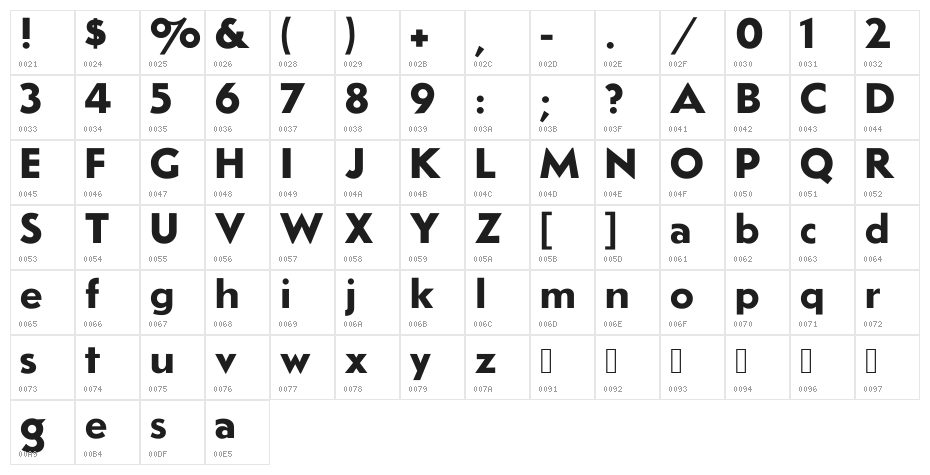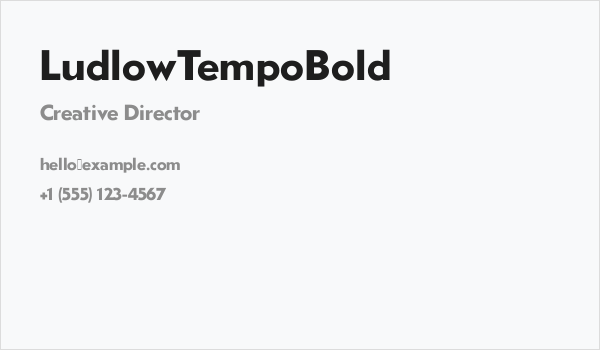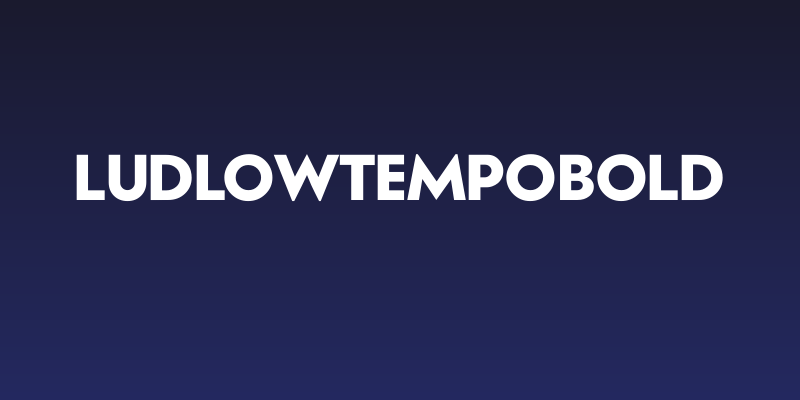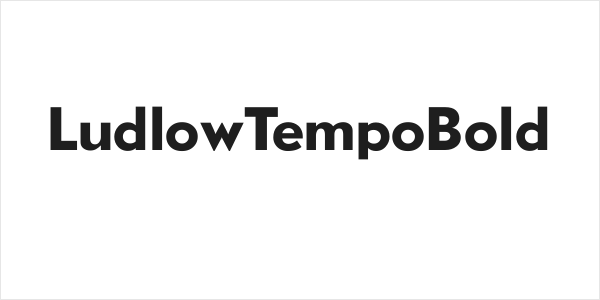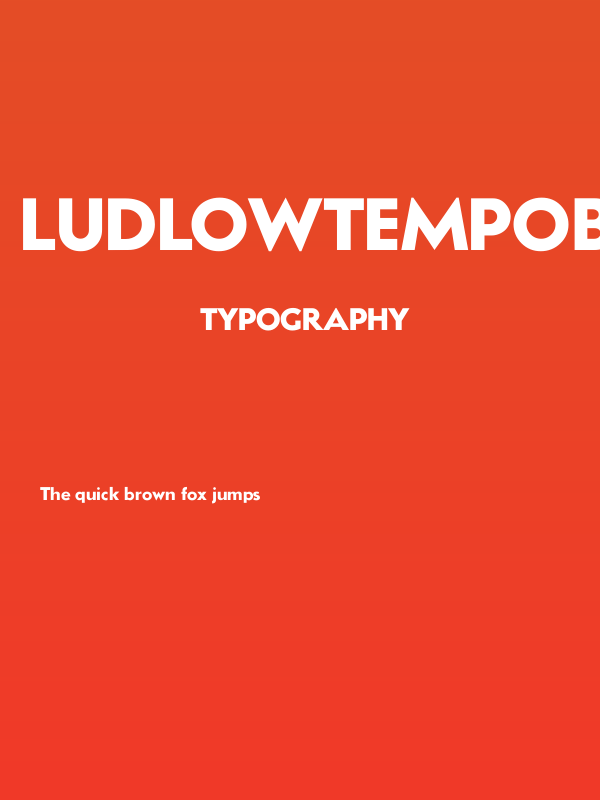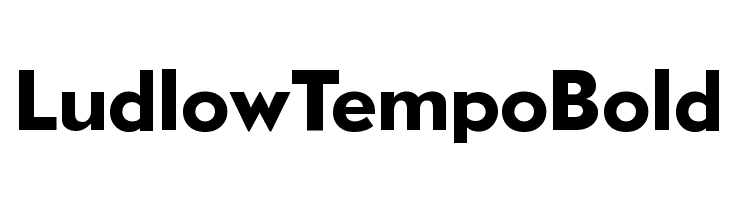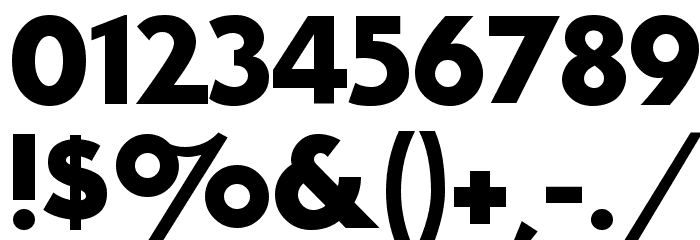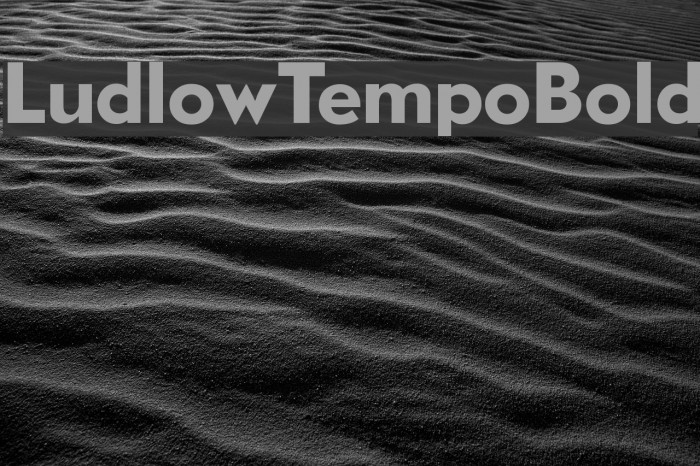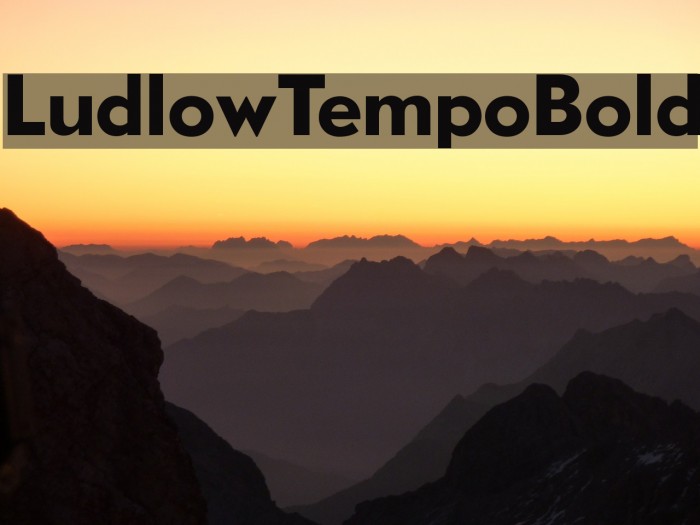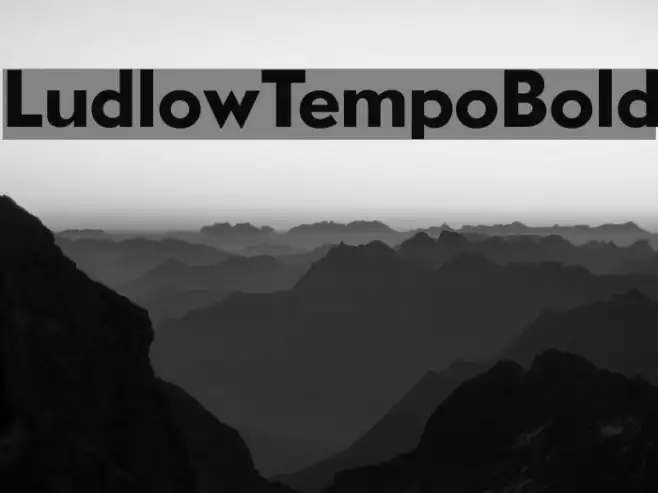
LudlowTempoBold Font
This font exhibits a bold and assertive style, characterized by its thick strokes and geometric shapes. The uppercase letters are strong and commanding, while the lowercase letters maintain a consistent weight, offering a harmonious balance. The numerals are equally bold, ensuring visibility and impact. Special characters are designed with the same boldness, providing a cohesive look across all glyphs. The font's overall appearance is modern and clean, making it suitable for various design applications where clarity and emphasis are needed.
| Proposed Projects | Ideal for branding, headlines, posters, and any design requiring a bold statement. |